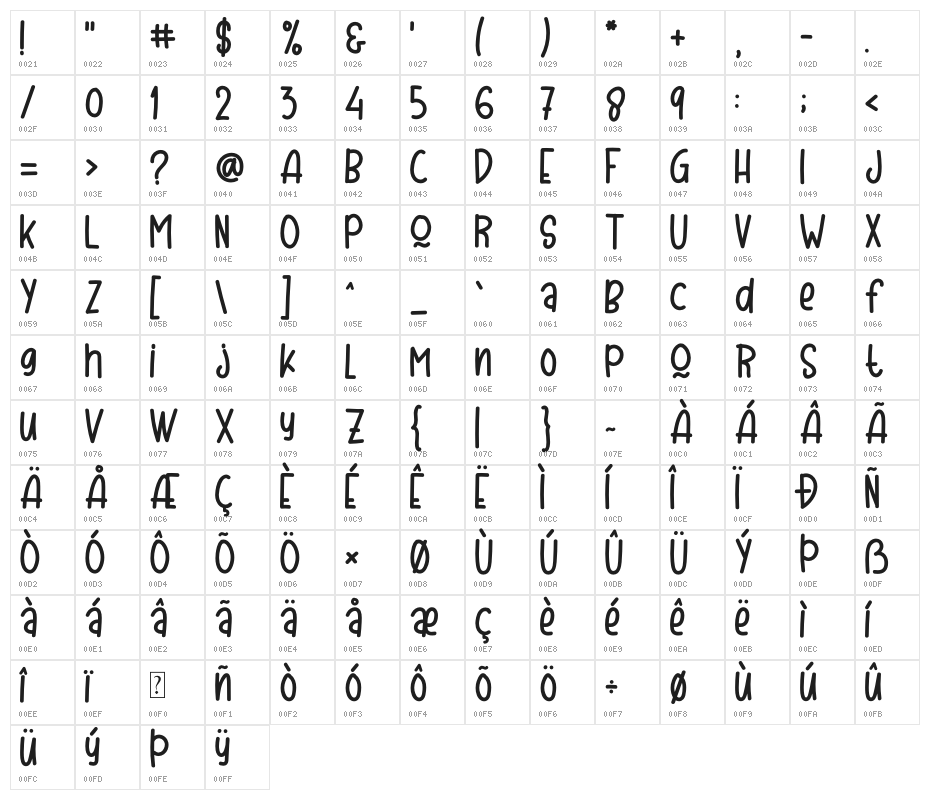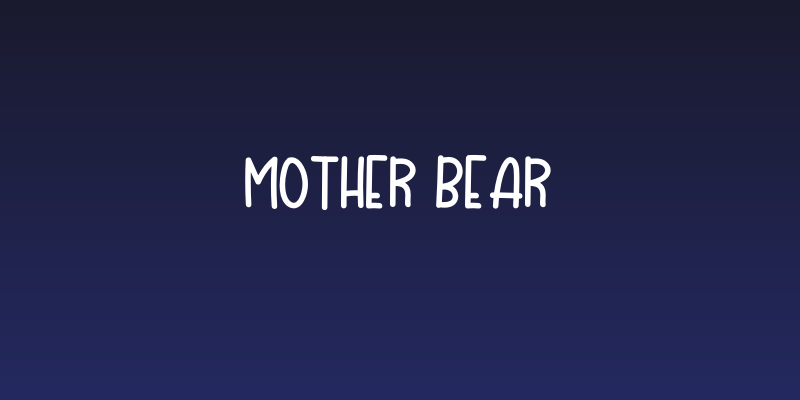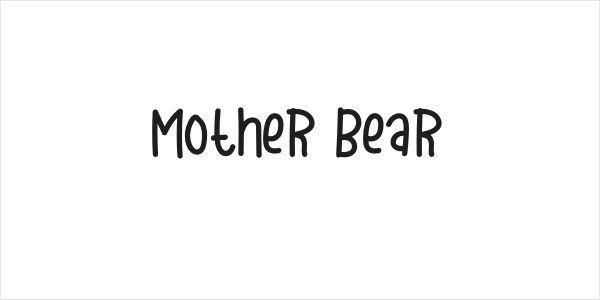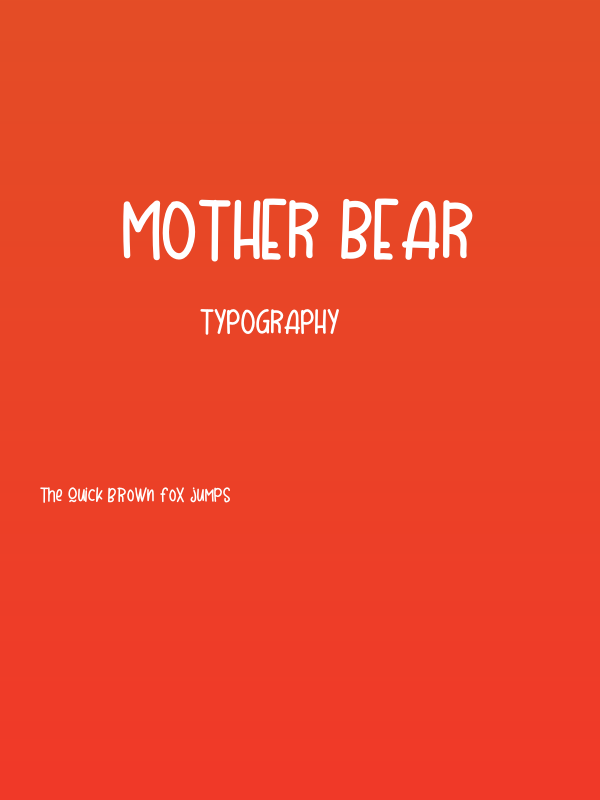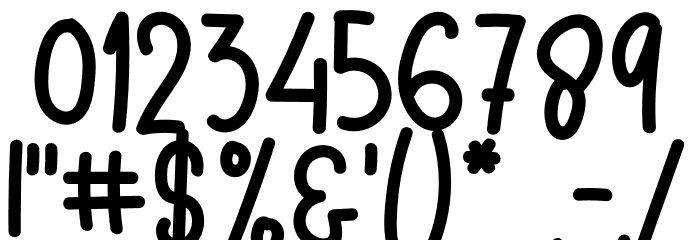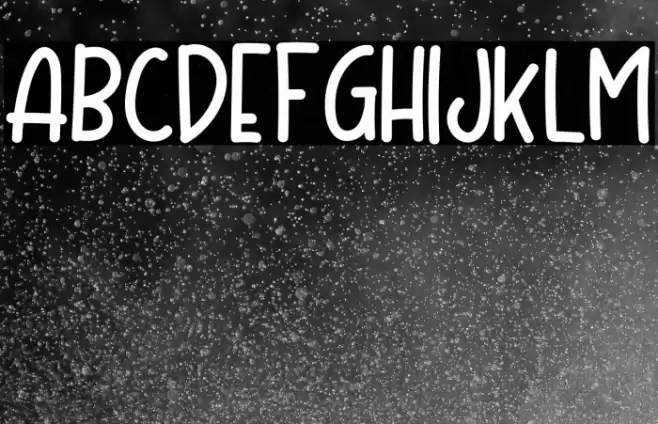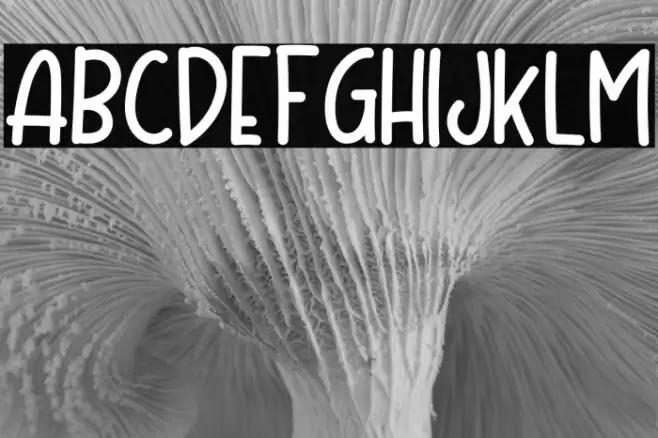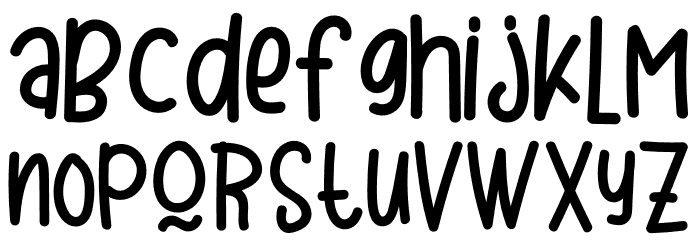
Mother Bear Font
This playful and whimsical font features a handwritten style with rounded edges and a casual feel. The characters are bold and slightly irregular, giving them a friendly and approachable appearance. The uppercase and lowercase letters maintain a consistent style, with a slight slant that adds to the informal aesthetic. Numbers and special characters are designed to match the overall playful theme, making this font suitable for creative and fun projects. The strokes are consistent in width, providing a uniform look across all characters.
| Proposed Projects | Ideal for children's books, greeting cards, playful branding, and social media graphics. |